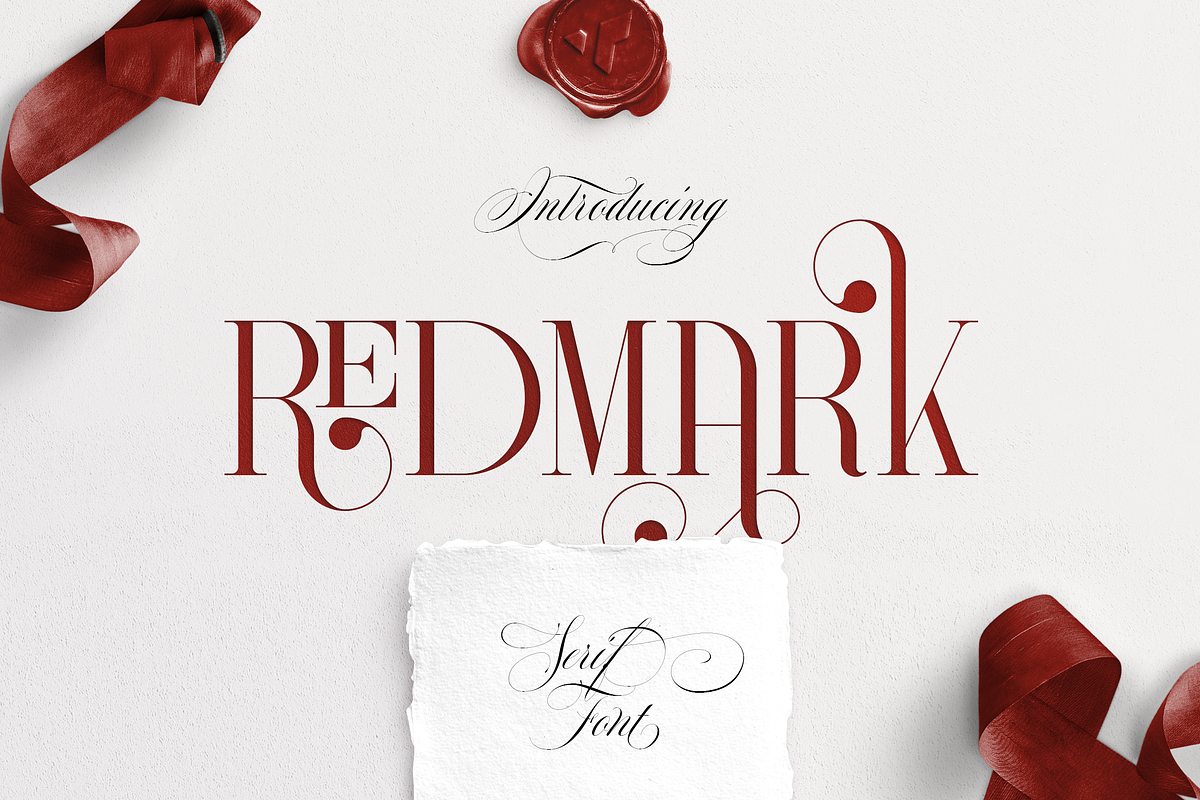
Redmark Font Free Download is an elegant serif typeface that exudes sophistication, refinement, and timeless beauty. With its high-contrast strokes, stylish curves, and graceful serifs, Redmark is the perfect choice for fashion branding, luxury packaging, editorial layouts, wedding invitations, and high-end logo design.
Designed to deliver both clarity and class, Redmark Font Free Download blends classic typography with modern aesthetics. It shines in large headings, magazine spreads, and brand identities where a touch of elegance is essential. Its sleek, well-balanced characters offer great readability without sacrificing personality.
Whether you're building a minimalist brand or crafting a luxurious editorial spread, Redmark offers a polished, premium look that elevates any design. It pairs effortlessly with clean sans-serifs or calligraphy-style scripts for added contrast and depth.